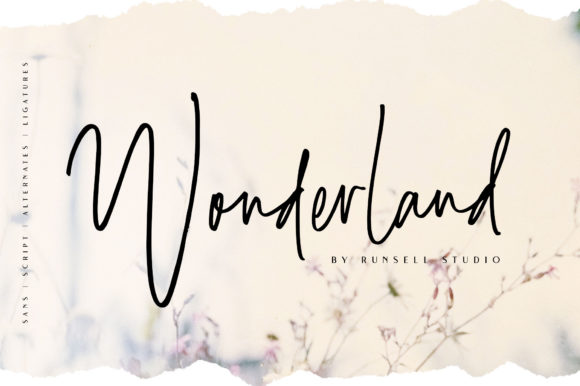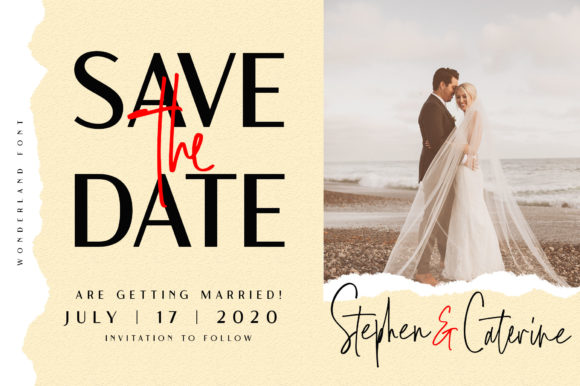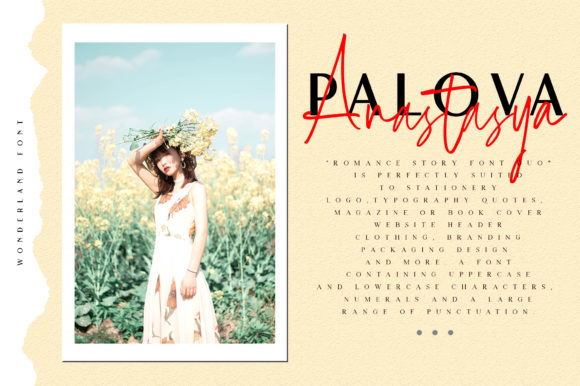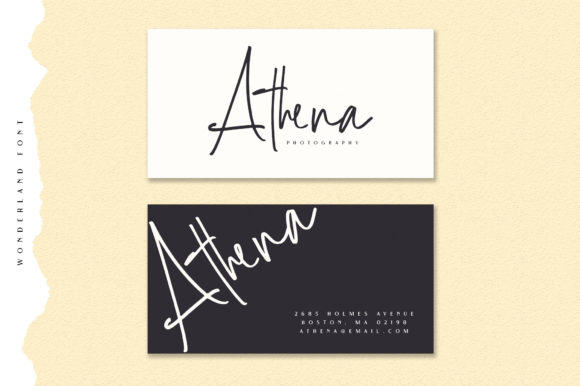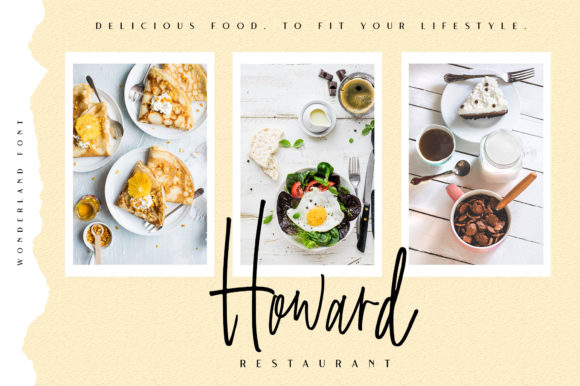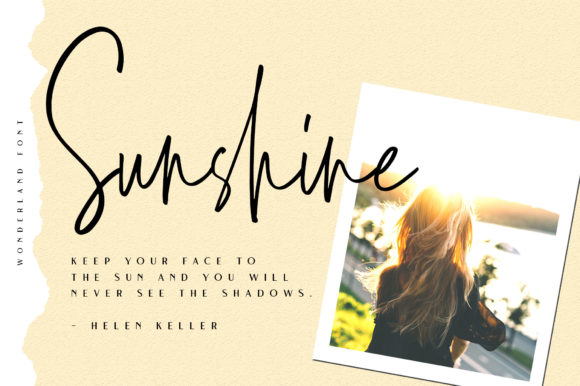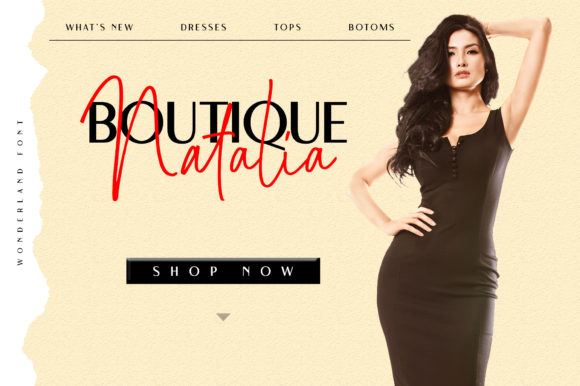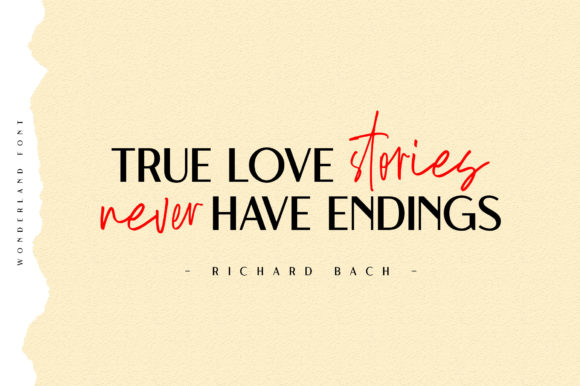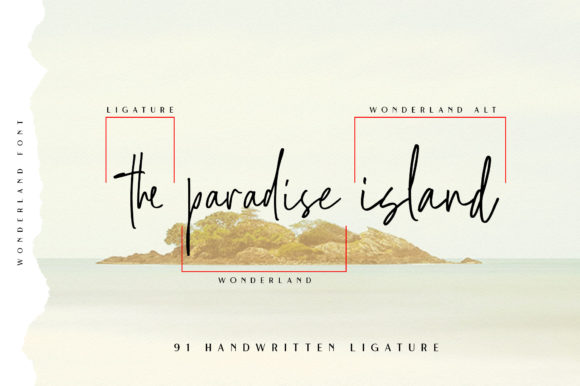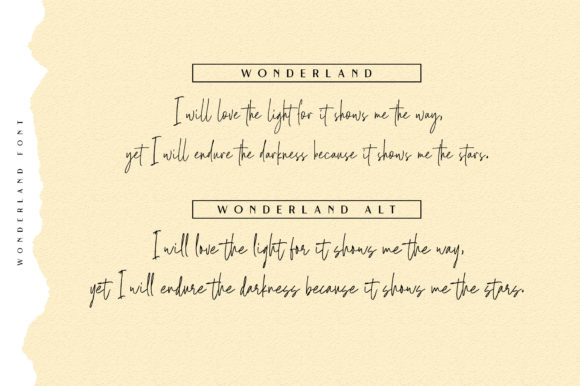
Wonderland Font
About Wonderland Font
Wonderland is an incredibly classy script featuring spacious lining and delicate width in its characters. This fancy handwritten font will make any design idea stand out!